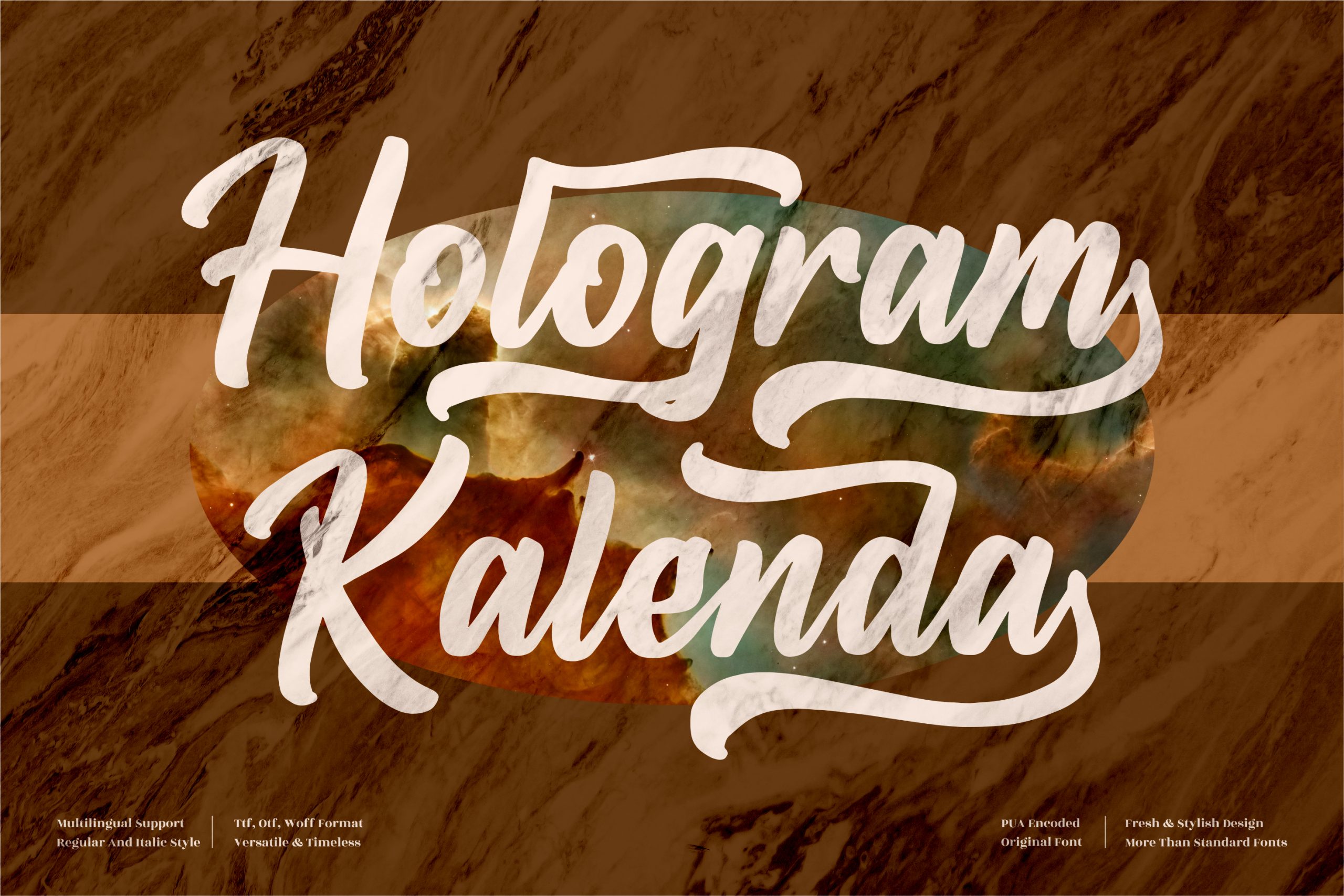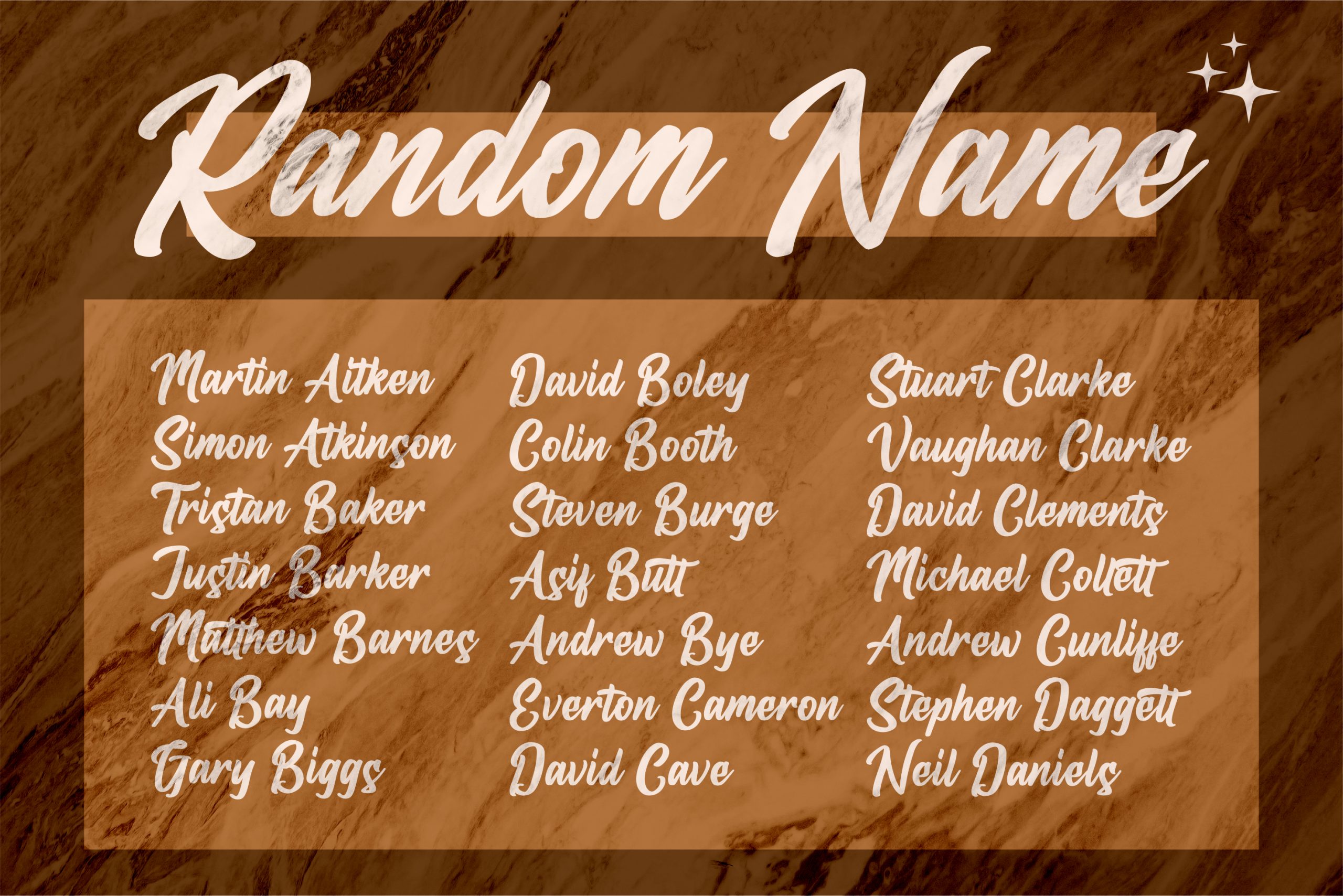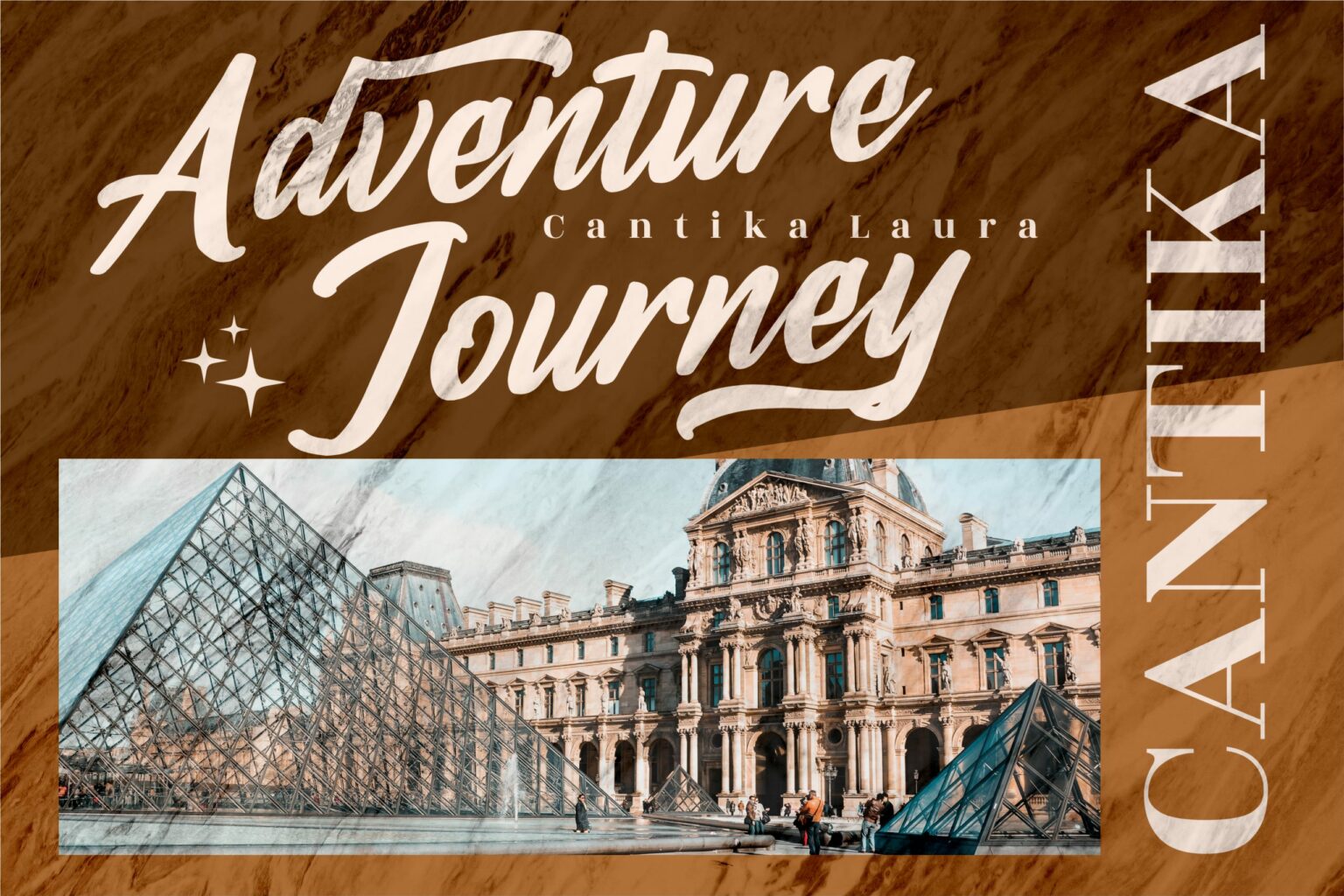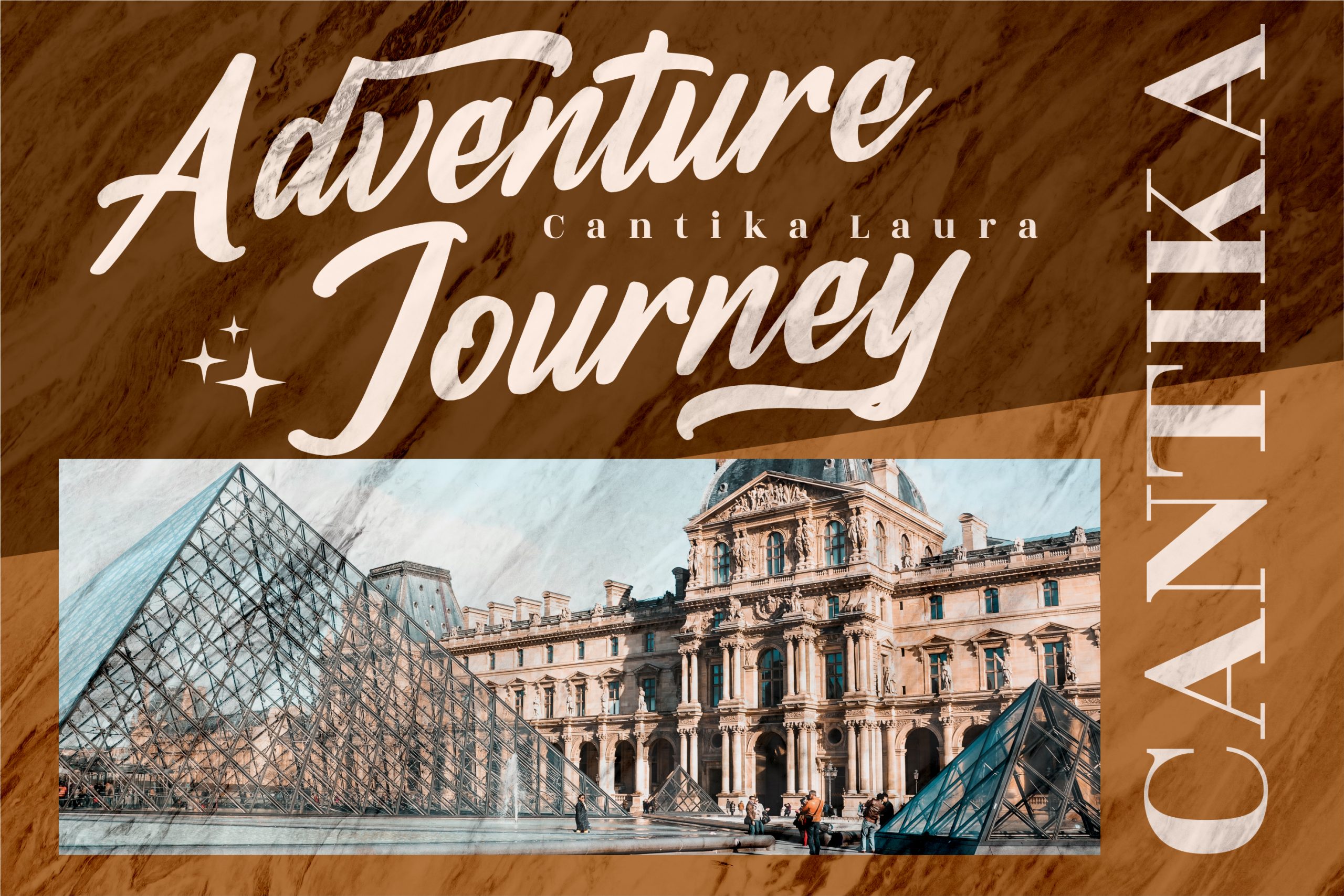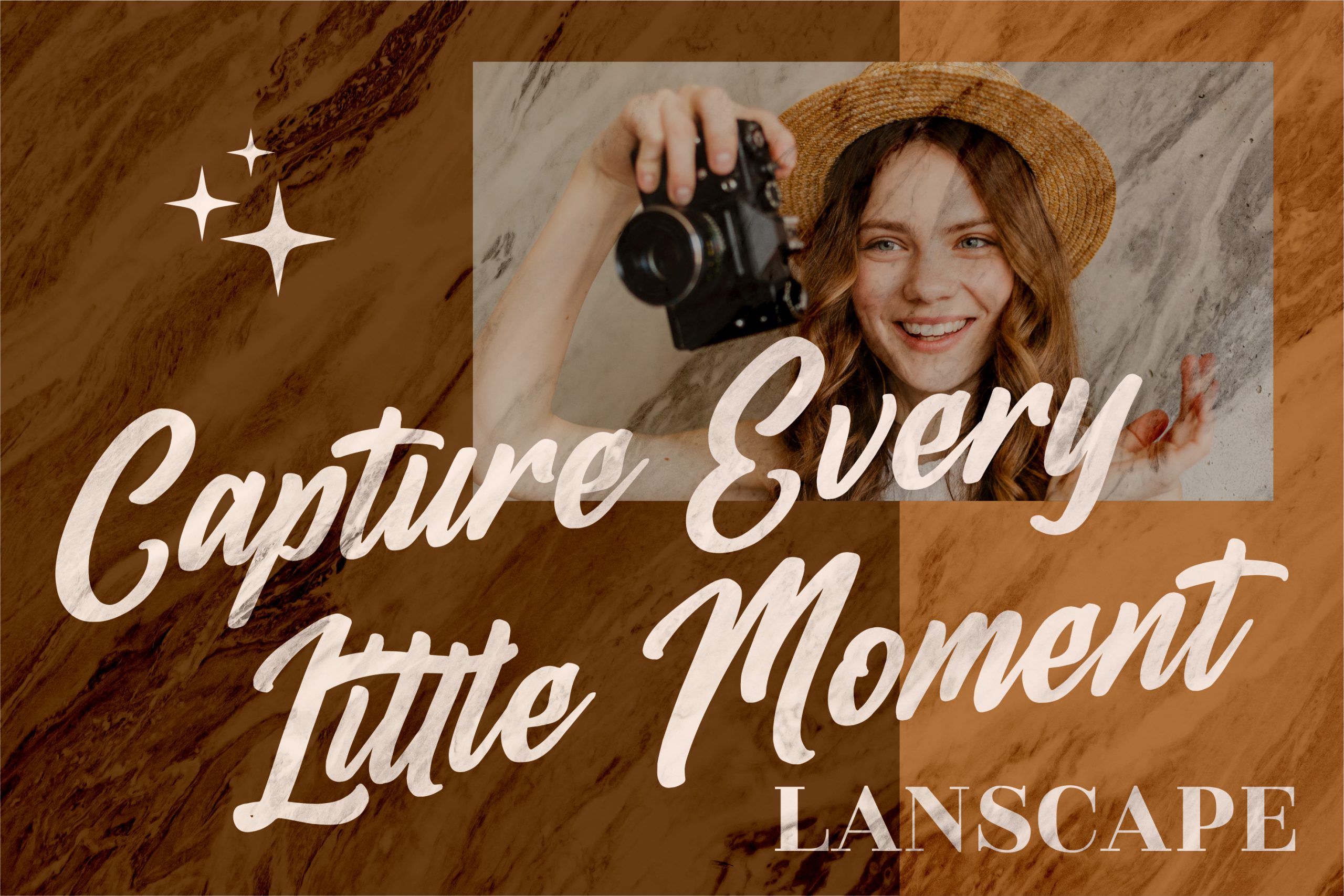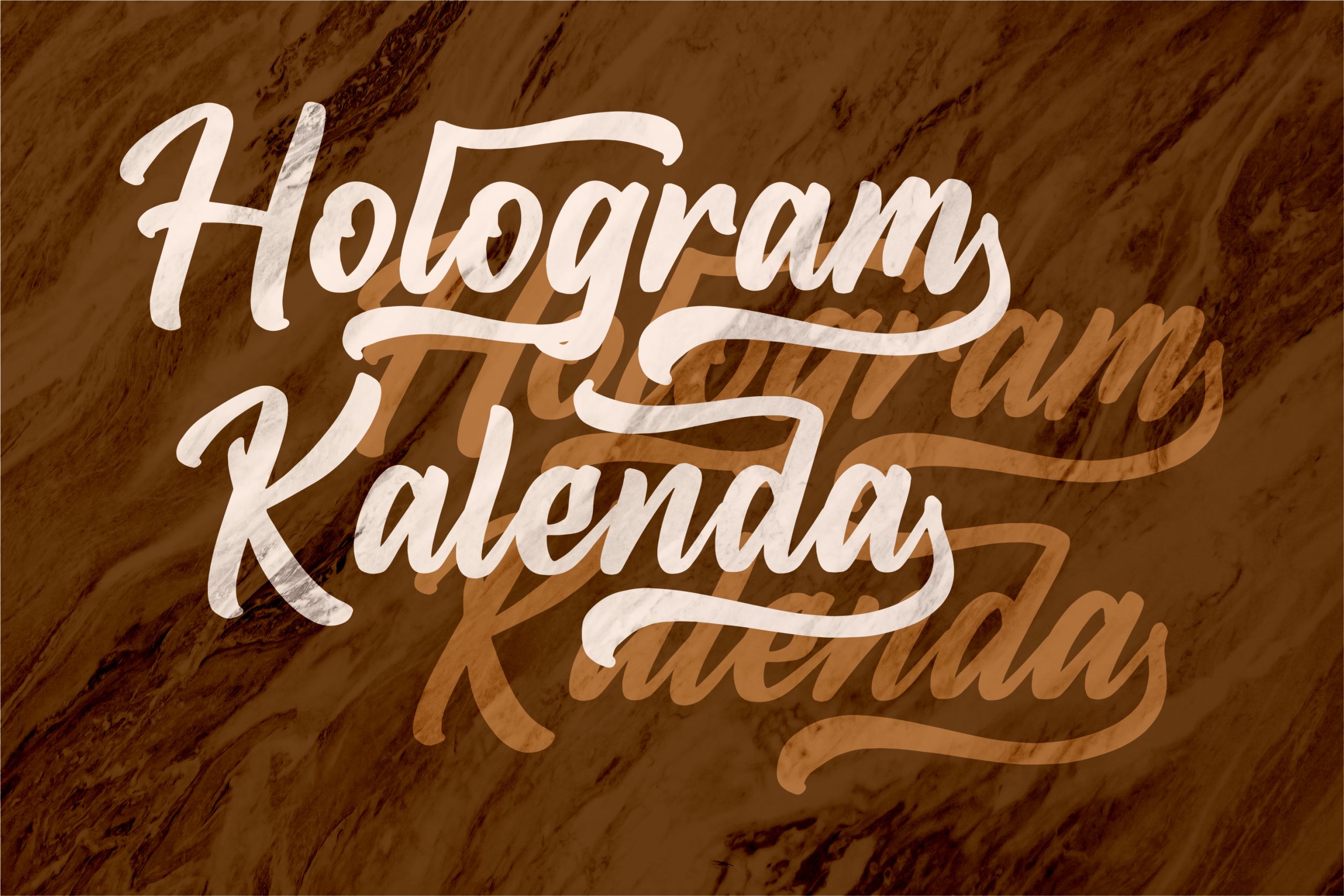
Hologram Kalenda Font
Hologram Kalenda Script Font
This is a premium signature font, suitable for any projects such as: logos, branding projects, homeware designs, product packaging, mugs, quotes, posters, shopping bags, t-shirts, book covers, name card, invitation cards, greeting cards, label, photography, watermark, special events, and all your other luxury projects that need a premium signature taste.